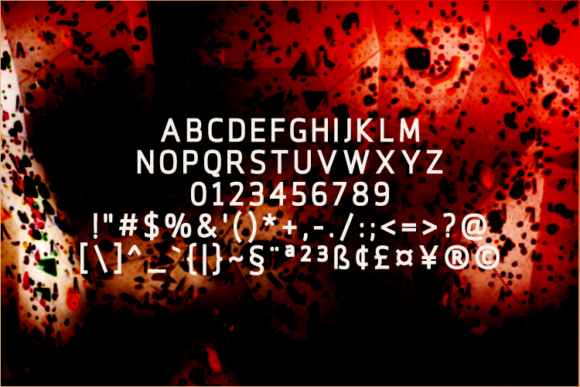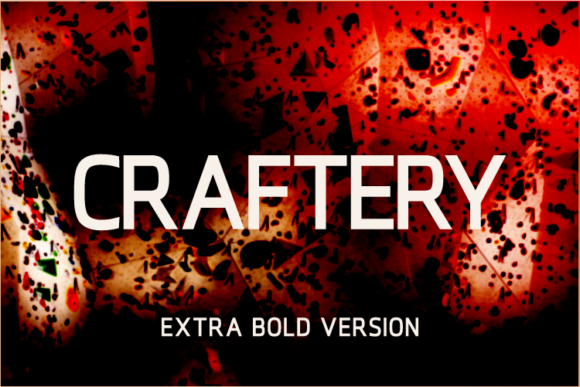
Craftery Extra Bold Font: Elevate Your Design with a Modern Sans Serif
In the world of typography, fonts play a crucial role in conveying the message and aesthetic of a design project. For designers and crafters looking for a modern sans serif font that embodies simplicity and minimalism, Craftery Extra Bold Font is an excellent choice. Inspired by the elegance of classic geometric shapes, Craftery is a contemporary font that can add a touch of sophistication to any design.
The Inspiration Behind Craftery
Craftery Extra Bold Font draws its inspiration from the simplicity and clean lines of classic geometric shapes. This font is a perfect blend of modernity and minimalism, making it an ideal choice for designers who want to create a lasting impression. The geometric shapes that inspired Craftery are characterized by their simplicity, symmetry, and clarity, which are also the core elements of a great font.
Key Features of Craftery Extra Bold Font
- Modern Sans Serif: Craftery is a modern sans serif font that boasts clean lines, simple shapes, and a minimalist aesthetic.
- Geometric Inspiration: The font’s design is inspired by classic geometric shapes, giving it a unique and distinctive look.
- Extra Bold: The extra bold weight of Craftery makes it perfect for headlines, titles, and emphasis.
- Versatile: Craftery can be used in a wide range of design projects, from branding and advertising to packaging and digital media.
Benefits of Using Craftery Extra Bold Font
Using Craftery Extra Bold Font in your design projects can have numerous benefits. Here are a few:
- Instant Recognition: The bold and geometric design of Craftery makes it instantly recognizable, grabbing the attention of your audience.
- Professional Look: Craftery’s clean lines and minimalist aesthetic give it a professional look that’s perfect for businesses and brands.
- Flexibility: The font’s versatility makes it suitable for use in various design projects, from digital media to print materials.
How to Use Craftery Extra Bold Font in Your Design
Using Craftery Extra Bold Font in your design projects is easy. Here are a few tips to get you started:
- Headlines and Titles: Use Craftery as a headline or title font to grab attention and add emphasis.
- Branding and Advertising: Craftery is perfect for branding and advertising projects, adding a touch of sophistication and professionalism.
- Digital Media: Use Craftery in digital media, such as websites, social media graphics, and email marketing campaigns.
Tips for Pairing Craftery with Other Fonts
Pairing Craftery with other fonts can create a unique and visually appealing design. Here are a few tips for pairing Craftery with other fonts:
- Contrasting Fonts: Pair Craftery with contrasting fonts, such as serif or script fonts, to create visual interest.
- Similar Fonts: Pair Craftery with similar fonts, such as other sans serif fonts, to create a cohesive look.
- Experiment with Font Sizes: Experiment with different font sizes to create a hierarchy of information and add visual interest.
Craftery Extra Bold Font is a modern sans serif font that’s perfect for designers and crafters looking to add a touch of sophistication and minimalism to their design projects. With its geometric inspiration, extra bold weight, and versatility, Craftery is an excellent choice for a wide range of design applications. By following the tips outlined in this article, you can make the most of Craftery and create stunning designs that grab attention and leave a lasting impression.